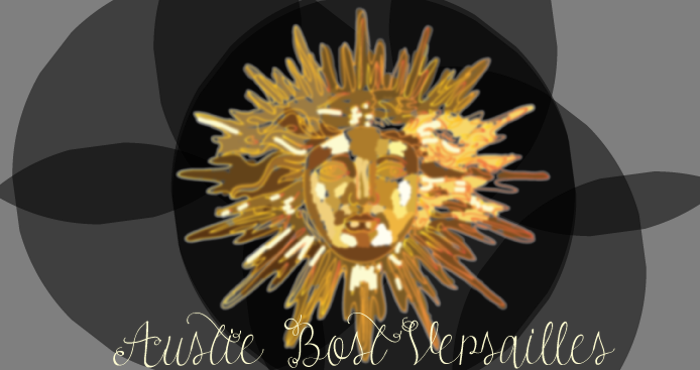
Austie Bost Versailles Font
Austie Bost Versailles is a connecting cursive font. Itβs a mix of classical cursive and modern calligraphy for a perfectly unique handwritten feel.